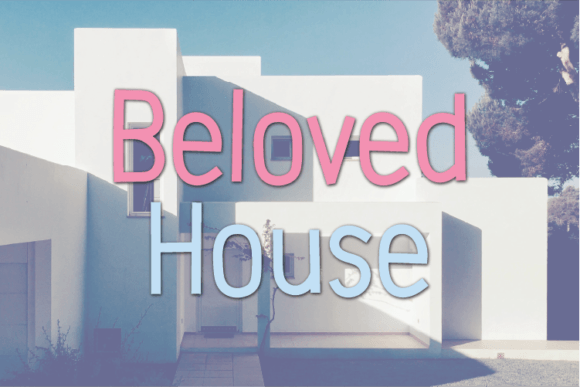
The Beloved House Font: A Designer’s New Best Friend
I’ll never forget the time I was working on a project for a client who needed a unique font for their branding. I had spent hours scouring the internet for the perfect sans serif font, but nothing seemed quite right. That was until I stumbled upon the Beloved House font. It was love at first sight! 💕
The Beloved House font is an interesting and unique sans serif font perfect for quotes, notes, T-shirts, and many more. Add it to your font collection, and it will make your creative projects outstanding!
• ✨ Unique and modern design that’s perfect for creative projects
• 💬 Great for quotes, notes, and other text-based designs
• 👍 Extensive character set, including glyphs and stylistic alternates
While the Beloved House font is amazing, there are a few things to keep in mind: 🤔
• ⚠️ Some users may find the font a bit too condensed for certain design applications
• ⚠️ Limited availability of language support (but it’s still a great option for English-based designs)
The Story Behind Beloved House
The Beloved House font was designed with the intention of creating a unique and modern sans serif font that would stand out in a crowded design landscape. The designer wanted to create a font that was both elegant and approachable, with a touch of personality.
Q: What is the Beloved House font?
A: The Beloved House font is a unique and modern sans serif font perfect for creative projects.